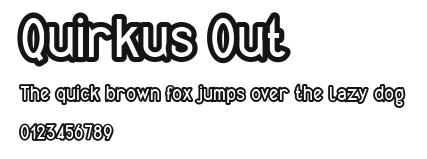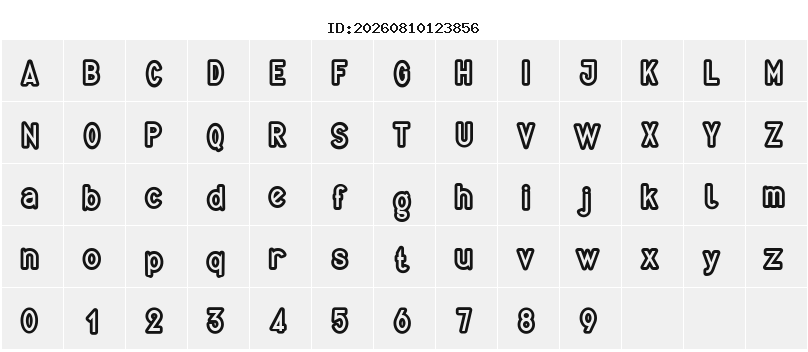
Quirkus Out Preview
• Font Name: Quirkus Out
• Full Font Name: Quirkus Out
• Designer: Peter Wiegel
About Quirkus Out.ttf
Quirkus Out.ttf is a modern, elegant sans-serif font designed for ultimate readability and visual harmony. Perfect for branding, headlines, web design, and print materials.